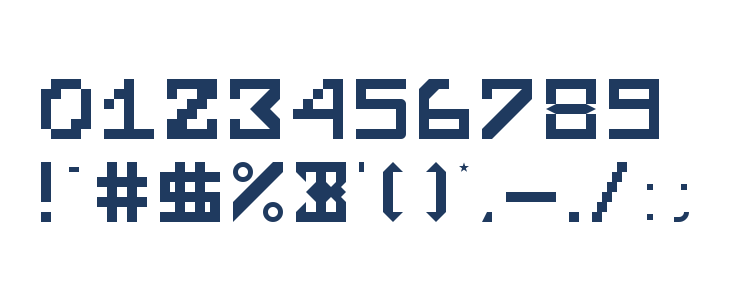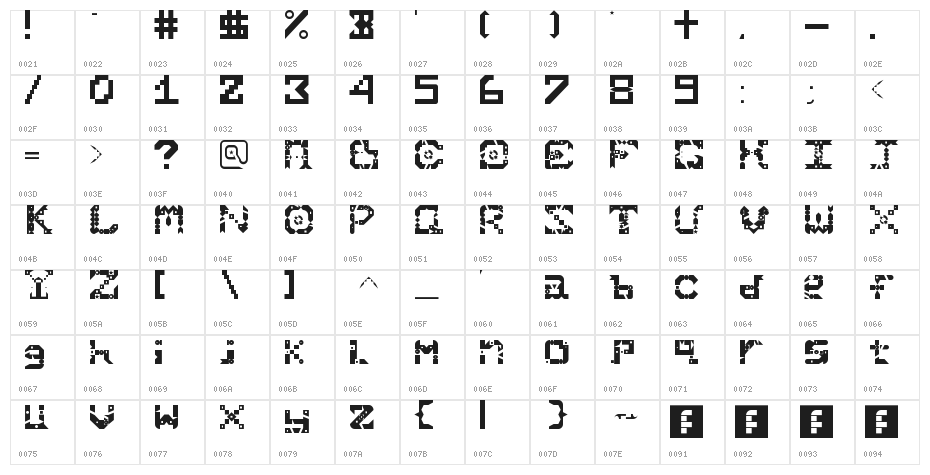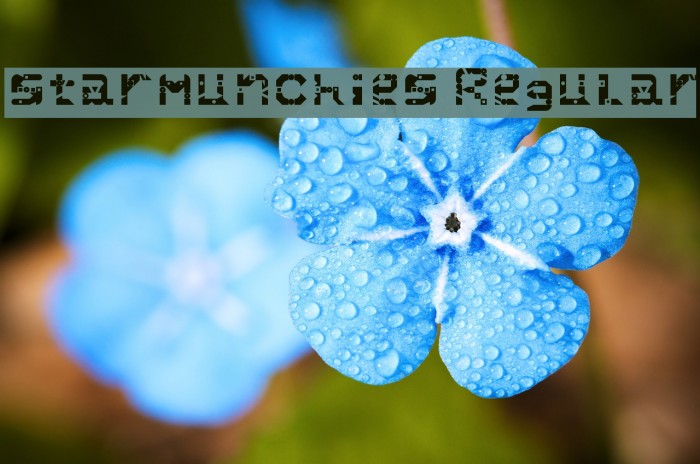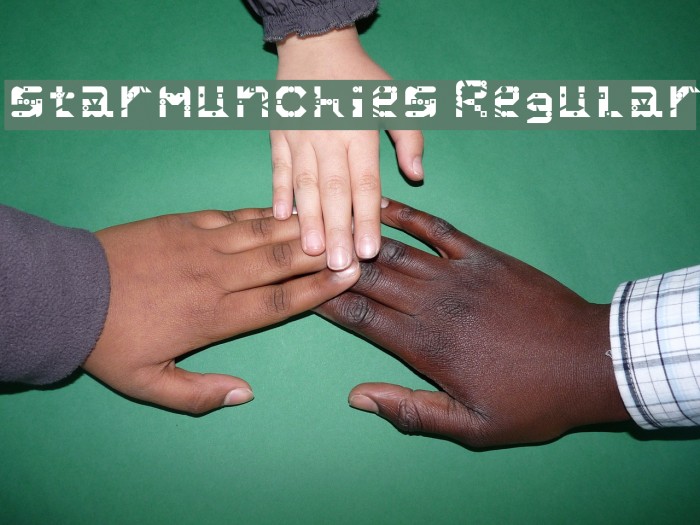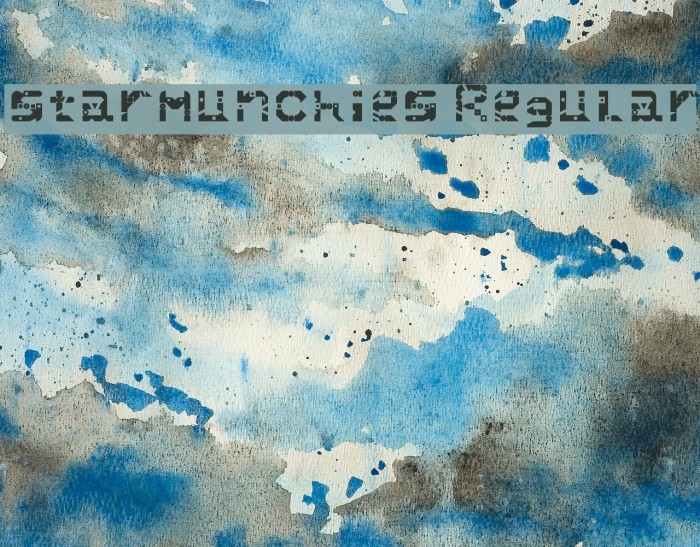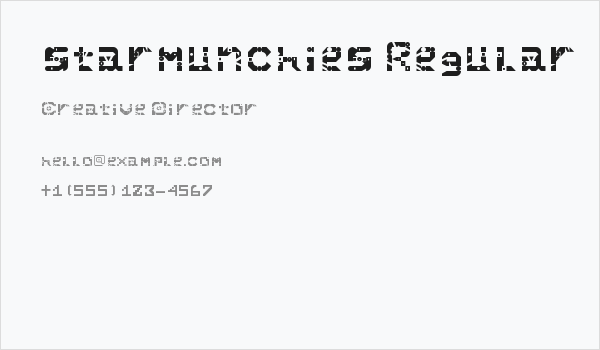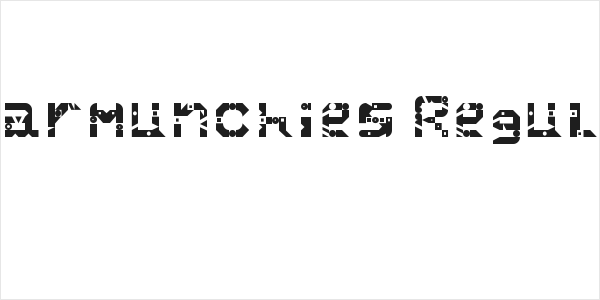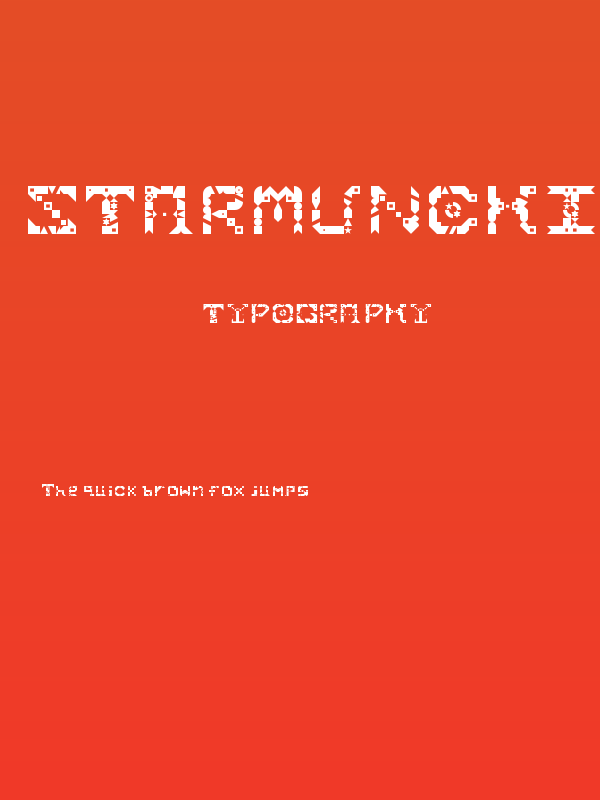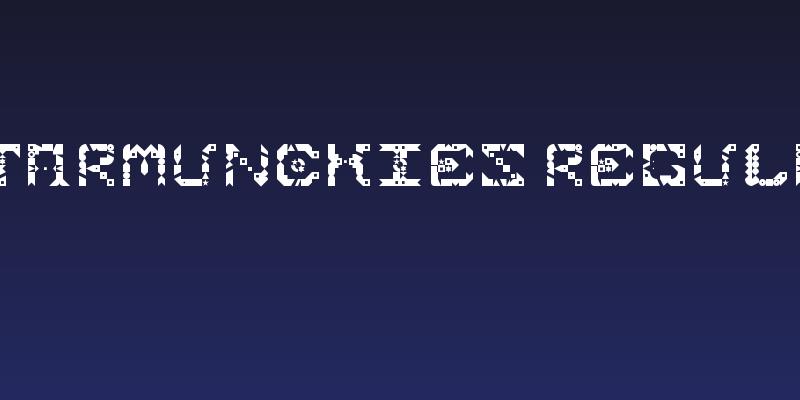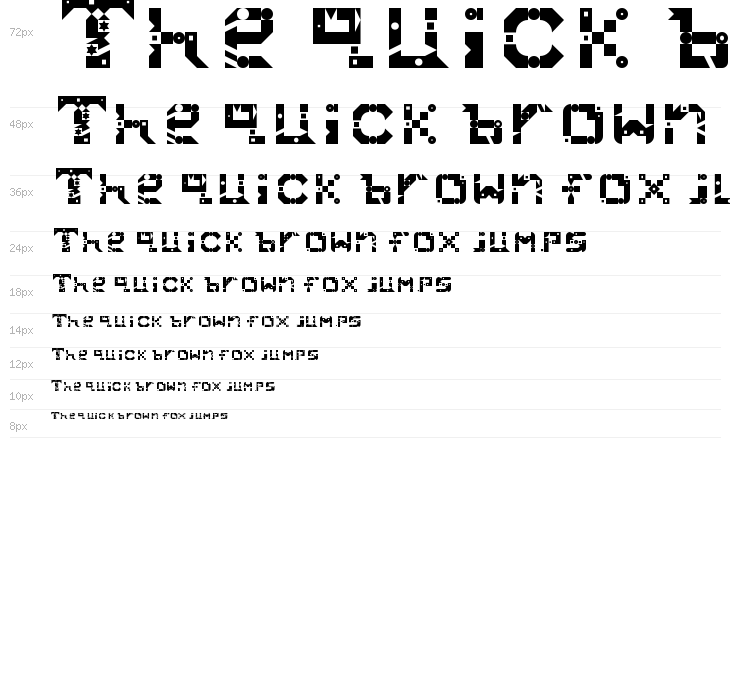
starmunchies Regular Font
starmunchies Regular Description
This font features a unique and playful design, characterized by its decorative elements that resemble stars and geometric shapes embedded within each character. The letters are bold and have a blocky structure, giving them a strong visual presence. The intricate details within the characters create a sense of whimsy and creativity, making it stand out as a display font. The uppercase and lowercase letters maintain a consistent style, while the numbers and special characters are designed to match the overall theme. This font is ideal for projects that require a fun and eye-catching aesthetic.
| Proposed Projects | Ideal for children's book covers, party invitations, posters, and any project needing a whimsical touch. |